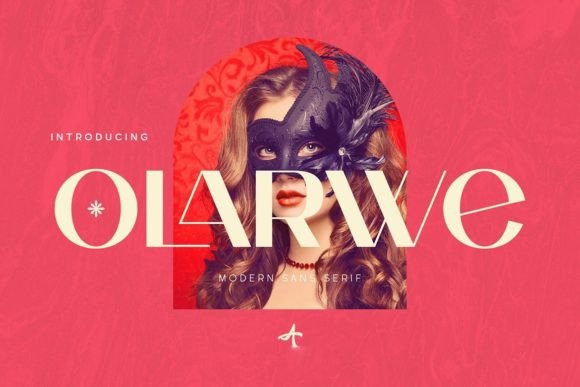
Unleash the power of Olarwe Font, a captivating sans serif typeface that exudes elegance and professionalism. Its modern lines and sleek curves bring a touch of sophistication to any design, making it the perfect choice for business cards, name tags, and uniforms.
With Olarwe, your brand identity will shine. Its clear and legible characters ensure maximum readability, leaving a lasting impression on clients and colleagues alike. Whether you're creating signage, letterheads, or presentations, Olarwe delivers a polished and refined look that commands attention.
But Olarwe's versatility doesn't stop there. Its timeless design seamlessly blends with other sans serif and modern script fonts, creating harmonious compositions that captivate. As a standalone header, it exudes elegance, adding a touch of luxury to book covers, magazine articles, and more.
Explore the creative possibilities of Olarwe's ligatures and alternative styles. These design elements add an artistic flair to your projects, making your designs stand out from the crowd. Experiment with different combinations to create eye-catching headlines, logos, and social media graphics that leave a lasting impact.
Olarwe is more than just a font; it's an investment in your brand's visual identity. Its modern and elegant aesthetic elevates your designs, conveying a sense of professionalism and sophistication. Choose Olarwe and watch your brand soar to new heights.